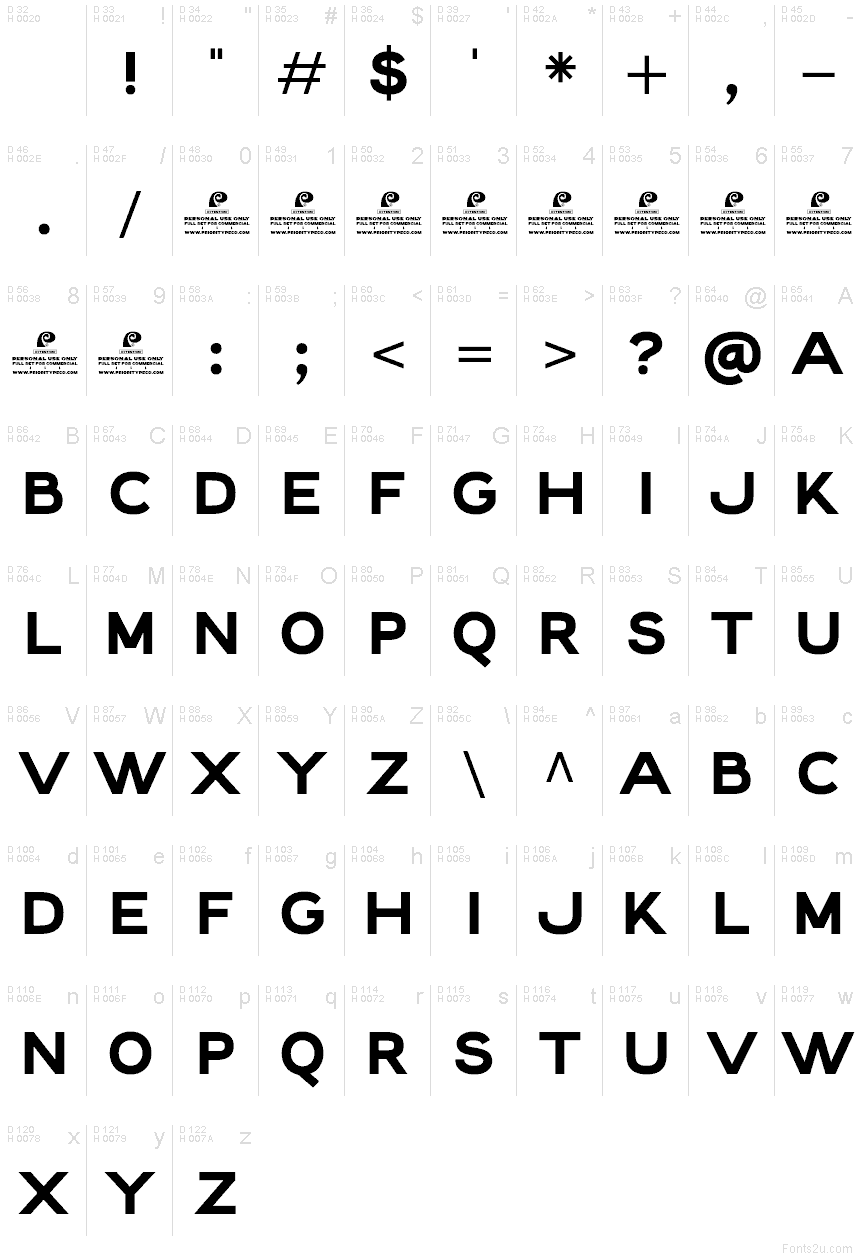
Loede DEMO Black
Loede Black font by Prioritype Co is a free sans serif typeface from the Loede family that fixes a common bold-headline headache: weight without clunk. Its wide, blocky forms keep strokes even, while open counters and squared curves stop letters from collapsing into blobs. The result feels solid and punchy, yet surprisingly airy—great when you need impact that still reads at a glance.
Using Loede Black, you can nail posters, packaging, sports branding, signage, social graphics, YouTube thumbnails, and apparel prints. The rhythm is steady and confident, so tight tracking looks crisp, and a hair of extra space makes small sizes breathe. For a simple pairing, match this free font with a light, neutral grotesk for body text.